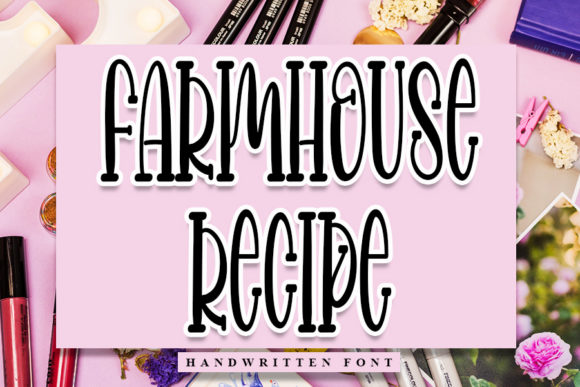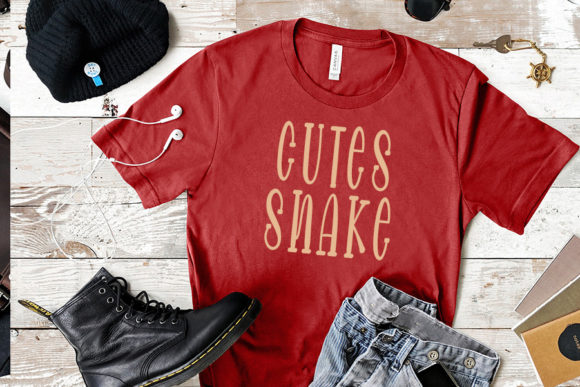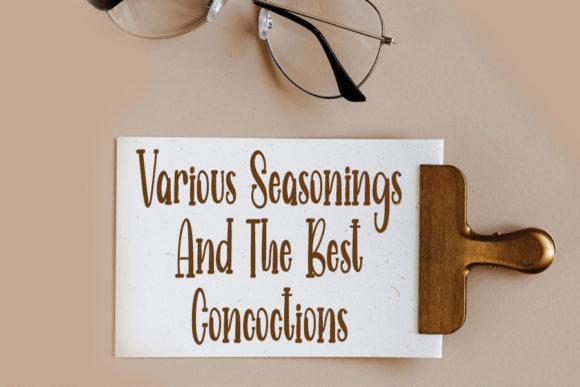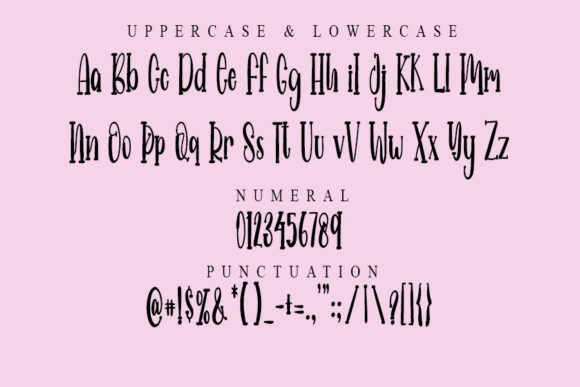
Farmhouse Recipe Font
About the Farmhouse Recipe Font
Explore the possibilities with Farmhouse Recipe Font, a font that offers both beauty and functionality. Farmhouse Recipe is a tall and friendly handwritten font. A little bit quirky, this font looks incredibly adept on a wide variety of contexts!
Its tall x-height and friendly forms make Farmhouse Recipe ideal for headlines, short paragraphs, and branding applications where a touch of rustic charm is desired. It works particularly well on packaging for food products, craft projects, or home goods, and also suits short, impactful posters or social media graphics. However, avoid using it for large blocks of body text or UI elements; its informal nature can hinder readability in extended use.
Consider pairing Farmhouse Recipe with a clean sans-serif like Open Sans for a balanced contrast, or a more geometric sans-serif such as Montserrat for a modern feel. For a touch of elegance, a delicate serif like Lora could work well. Avoid pairing it with overly ornate script fonts, as this might create visual clutter.
The font’s core personality is cheerful and approachable, with a hint of rustic authenticity. It projects a feeling of warmth and homemade quality, making it suitable for brands aiming for a friendly, down-to-earth image.
Farmhouse Recipe Font Usage Examples
Farmhouse Recipe Font Example